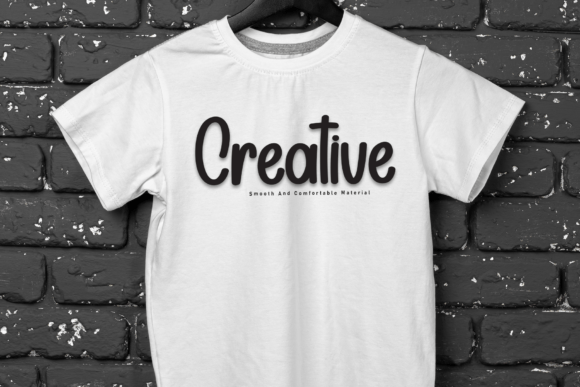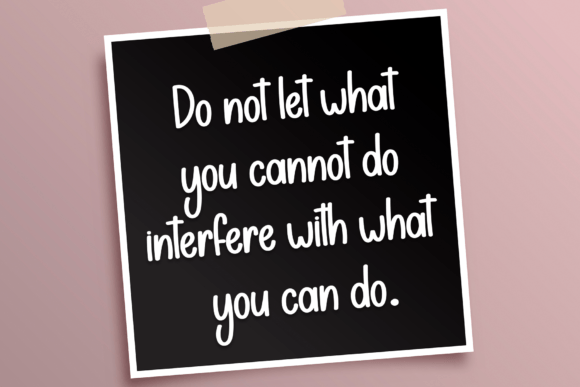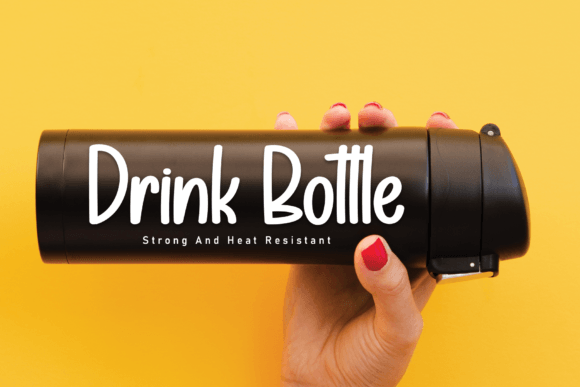
Introduction to Boho Unicorn Font
Meet our charming and whimsical handwritten display font – a delightful blend of calligraphic elegance and playful charm.
This captivating typeface exudes a lighthearted, friendly vibe making it perfect for composing heartfelt wedding invites, memorable cards, or any creative design which calls for a dash of fun Its cute, dynamic style promises to add an enchanting and elevating touch to your artistic expressions.
Why Choose Boho Unicorn Font?
Boho Unicorn Font offers exceptional quality and versatility, making it a valuable addition to your design toolkit. Whether you’re creating for personal projects or commercial use, Boho Unicorn Font delivers professional results.